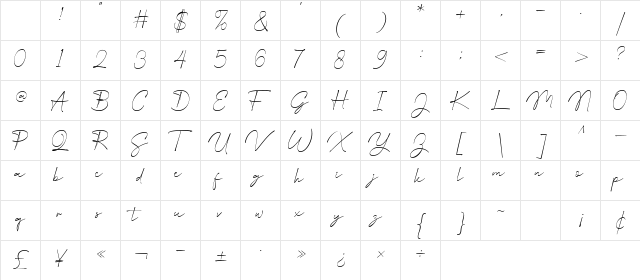
Milyah is a composed and adaptable typeface that performs quietly and consistently across a wide range of design contexts.
Pro Tip: Use Milyah in both headline and body roles to test its range before committing to a single application.